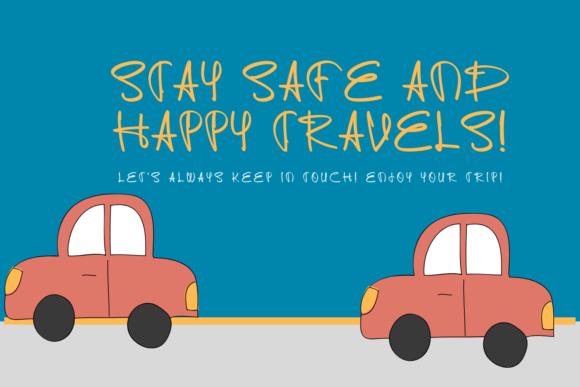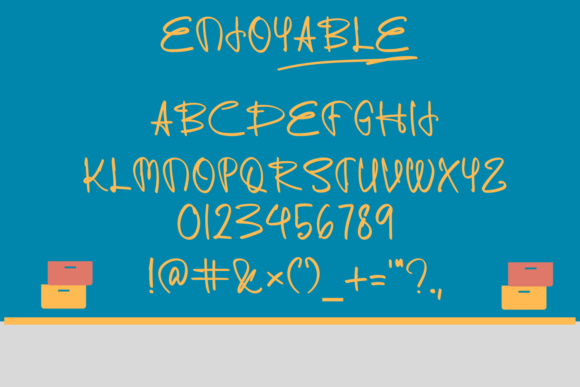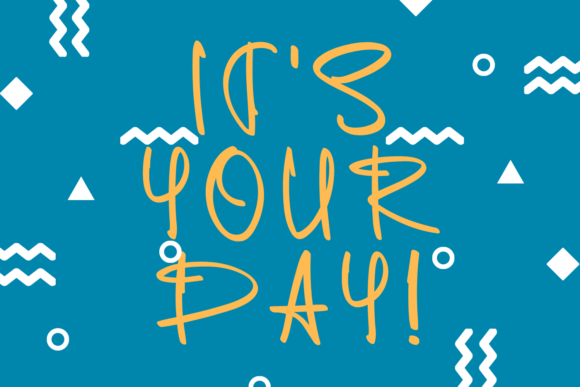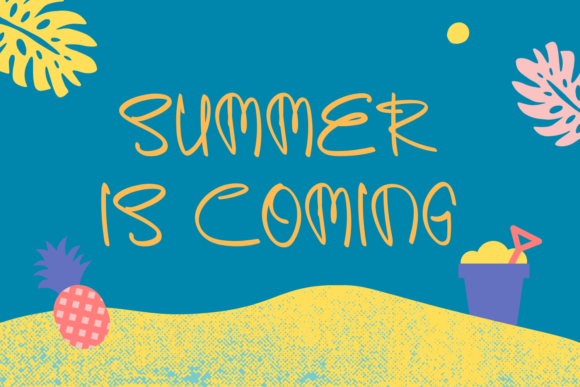
The Perfect Blend of Fun and Creativity
Have you ever been in the middle of a creative project, and suddenly, the perfect font pops into your mind? For designers, that moment of inspiration is what makes all the hard work worth it. It’s the spark that sets the tone for the entire project, and for me, it’s exactly what happens when I think of the Enjoyable Font.
This playful and whimsical display font is more than just a pretty face – it’s a tool that can elevate any project from mundane to magical. Whether you’re crafting a unique gift, designing a digital presentation, or making a heartfelt greeting card, the Enjoyable Font is the perfect companion to help you bring your ideas to life.
Key Features of Enjoyable Font
- Unique Characteristics: The font’s distinctive rounded shapes and smooth connections create a friendly, approachable feel, making it suitable for branding, packaging, and editorial design.
- Font Pairing: The font’s versatility makes it easy to pair with other fonts, allowing designers to create unique and harmonious typography combinations.
Enjoyable Font Review
I’ve had the chance to work with “Enjoyable Font” in a few projects, and I must say it’s a decent addition to any design library. ✨ The font’s playful and friendly feel makes it perfect for branding, social media, and even advertising. It’s versatile and can be used for both digital and print materials.
Here are some specific things that I enjoy about “Enjoyable Font”:
- ✨ Unique letterforms: Each character is carefully crafted to create a unique visual identity.
- ✨ OpenType features: The font supports a range of advanced features, including ligatures, swashes, and contextual alternates.
- ✨ Good legibility: Despite its playful feel, the font remains legible even at small sizes.
However, there are a few limitations that I’d like to point out:
- ⚠️ Limited language support: The font only supports a limited range of languages, which may be a issue for global brands or publications.
- ⚠️ Not ideal for long-form content: While the font works well for headlines and short blocks of text, it may not be the best choice for long-form content, such as articles or books.
Overall, I think “Enjoyable Font” is a solid choice for designers who want a playful and engaging font. While it may not be the perfect font for every project, it’s definitely worth considering for the right kind of job.
Getting the Most Out of Enjoyable Font
To get the most out of the Enjoyable Font, use it in bold headings and subheadings to draw attention and create visual hierarchy. You can also use it in combination with other fonts to create a unique and engaging design.
The Enjoyable Font is suitable for various use cases, including:
– Social media graphics
– Blog posts and articles
– Presentations and reports
– Brochures and flyers
– Branding and marketing materials
Alternatives to Enjoyable Font
Lato is a modern sans-serif font designed by Łukasz Dziedzic. It’s perfect for use in digital products, such as websites, apps, and software, where a clean and elegant design is required. Lato is a great alternative to Enjoyable Font as it offers a similar feel but with a more minimalist approach.